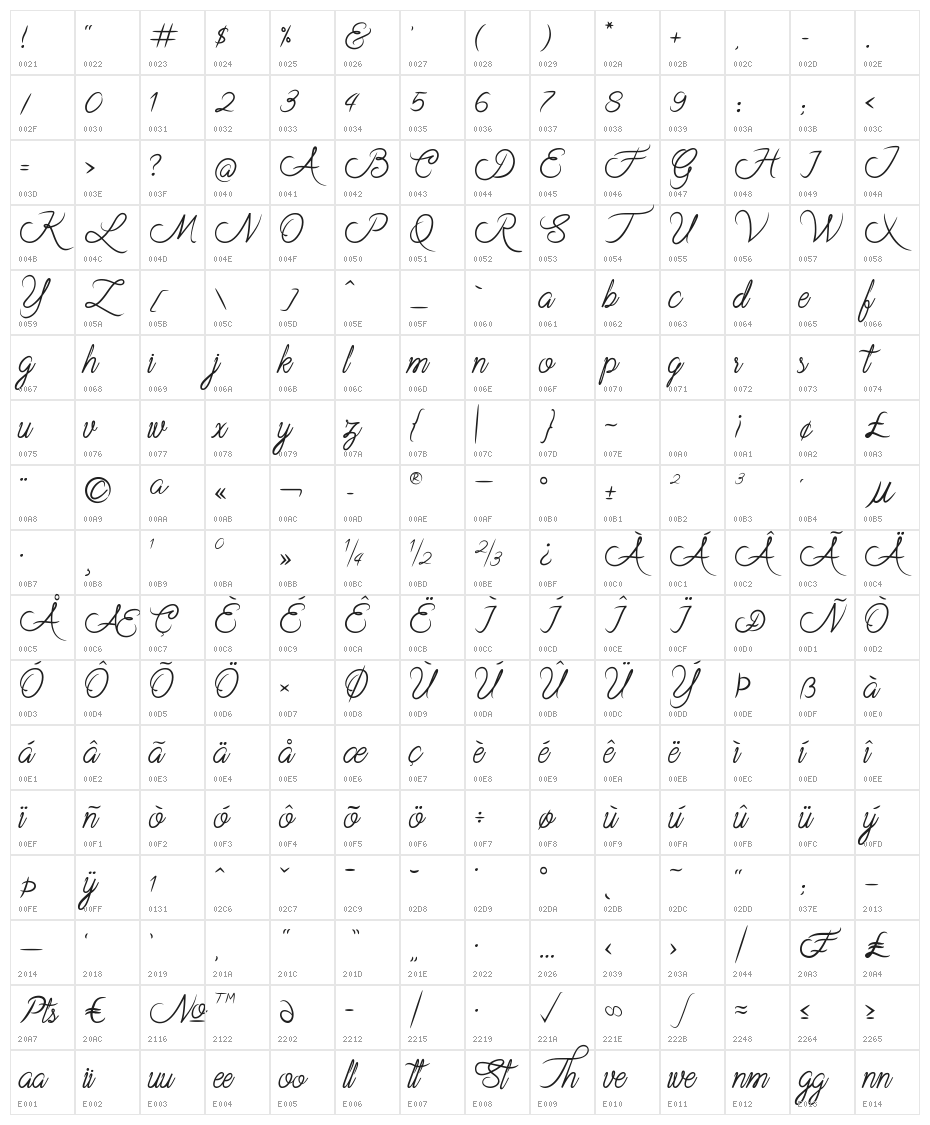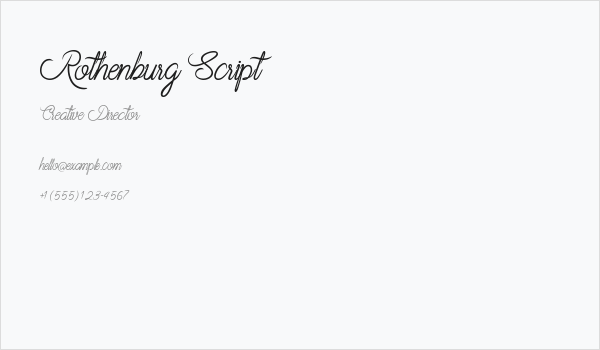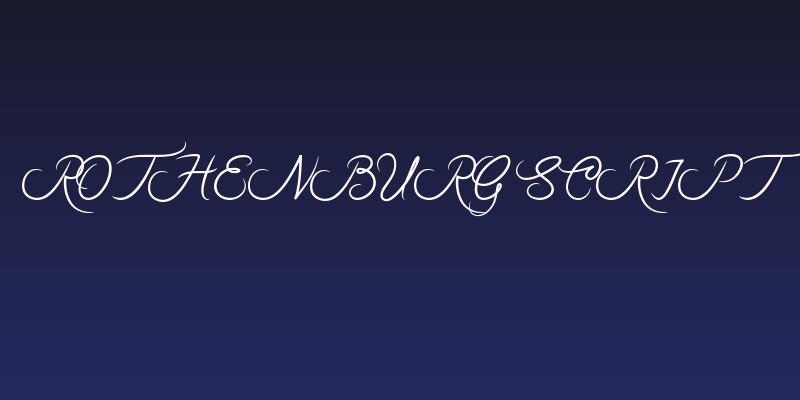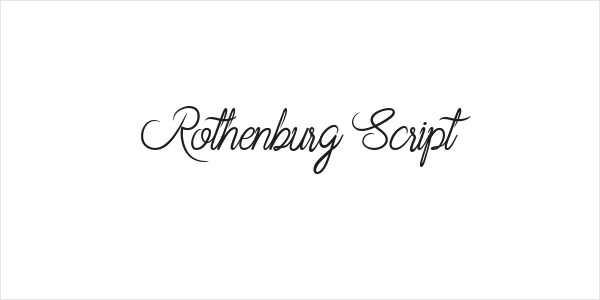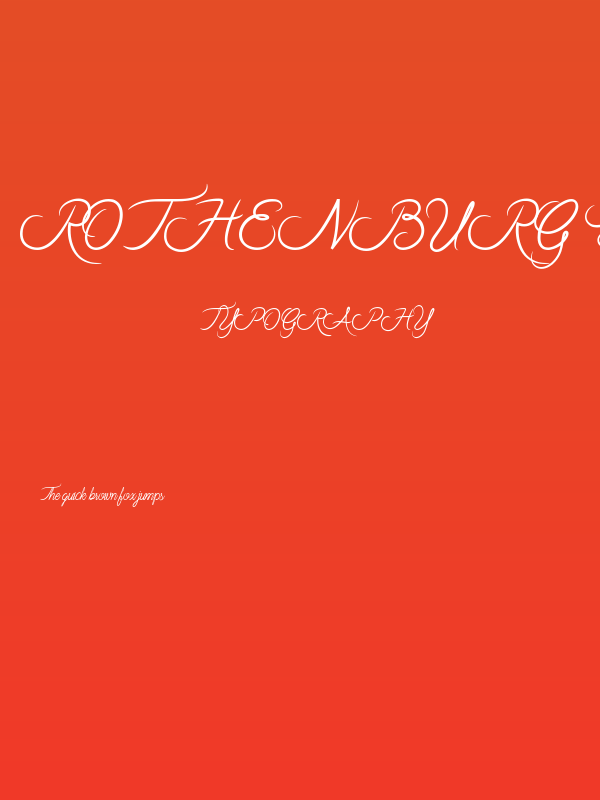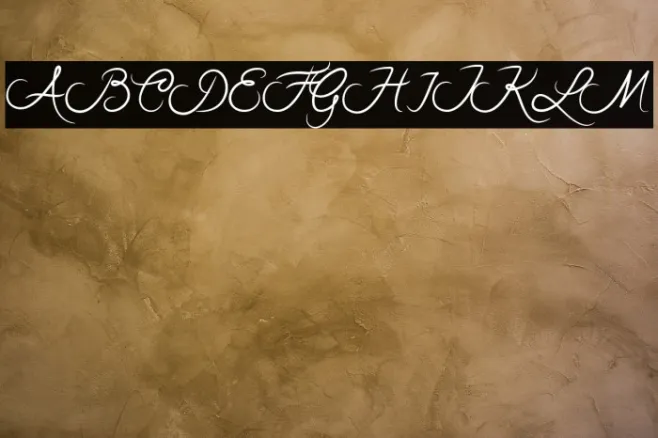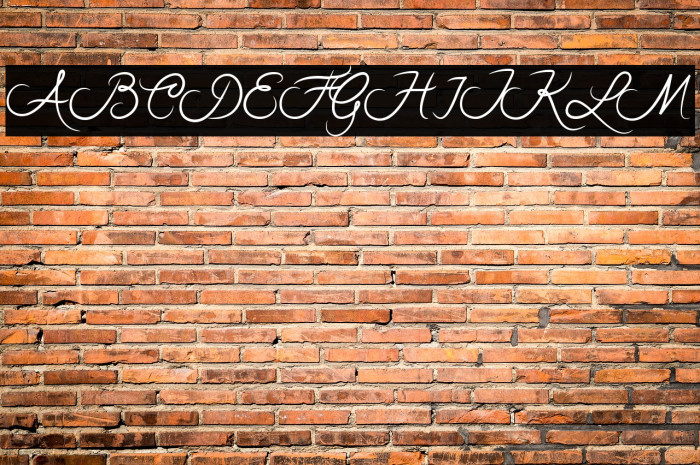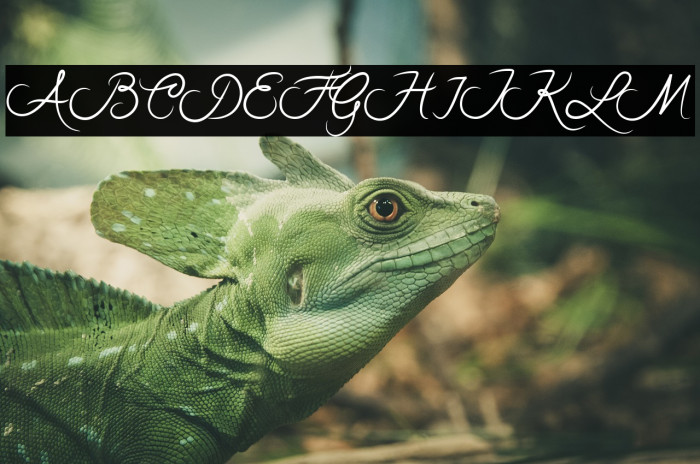
Rothenburg Script Font
Rothenburg Script Description
This elegant script font features a flowing, cursive style with intricate loops and swashes. The uppercase letters are ornate, with extended flourishes that add a touch of sophistication and drama. The lowercase letters maintain a consistent flow, connecting smoothly for a seamless handwritten appearance. The numerals and special characters are designed to complement the overall aesthetic, maintaining the same graceful curves and delicate lines. This font exudes a sense of elegance and formality, making it ideal for projects that require a touch of class and refinement.
| Overall Style | Elegant, Formal |
| Use Case | Invitations, Branding, Packaging |
| Proposed Projects | Wedding invitations, elegant branding, formal event programs, luxury product packaging. |
| Author | Fonts by InermediaSTUDIO |